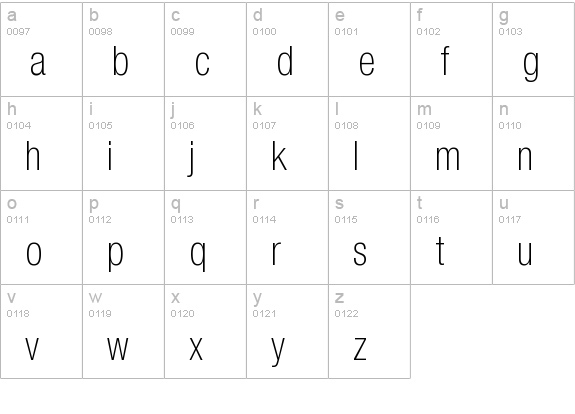
Context Reprise ThinCond SSi Normal Font Details
Context Reprise ThinCond SSi Normal is the standard, neutral variant in the Context typeface family \xE2\x80\x94 well suited to general body text, paragraphs, and standard typographic work.
The Context Reprise ThinCond SSi Normal font is a sleek and elegant typeface that exudes sophistication and modernity. Its thin and condensed design makes it versatile for various design projects, from branding to editorial layouts. This font is perfect for creating a clean and contemporary look that will make your text stand out. Best of all, this font is available for free download at FontsMarket.com, making it accessible to all designers looking to add a touch of elegance to their work. Don't miss out on the opportunity to enhance your designs with this stylish and timeless font. Download Context Reprise ThinCond SSi Normal today and elevate your projects to the next level!